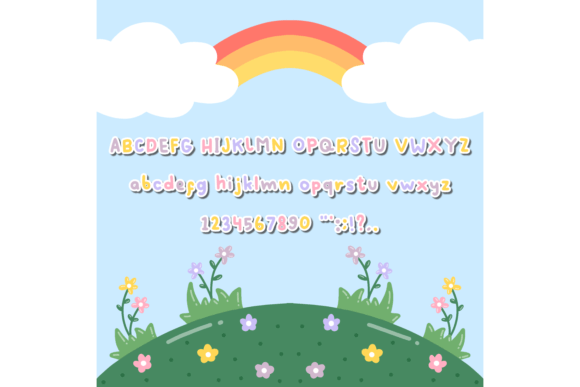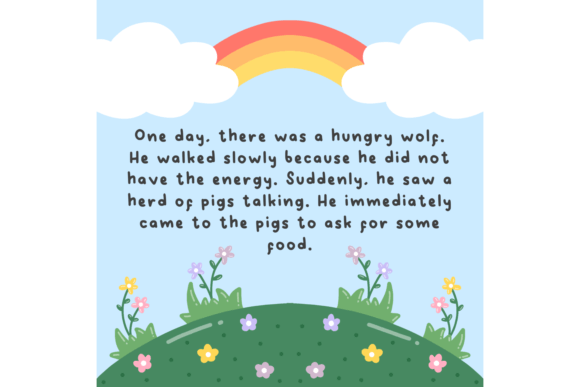
Wingko Babat Font
About Wingko Babat Font
“Wingko Babat” is a joyful and fun font that radiates a playful and cheerful vibe. Its cute and whimsical design makes it an excellent choice for children-oriented projects, including story books, drawing books, and even encyclopedias designed for kids. This typeface adds a delightful touch to educational materials and creative content targeted at young audiences.
The font’s lively and playful characters capture the essence of childhood, making it visually engaging and appealing to kids. Its cheerful demeanor creates a friendly atmosphere, making learning and reading more enjoyable for young readers. Whether you’re working on interactive storybooks, educational games, or colorful illustrations, “Wingko Babat” enhances the overall experience, making it exciting and captivating for children.
One of the strengths of “Wingko Babat” is its ability to bring a sense of joy and fun to educational materials. Its playful design encourages creativity and imagination, making it an ideal choice for projects that aim to inspire and entertain young minds. The font’s readability and child-friendly aesthetics ensure that it effectively conveys information while keeping children entertained and engaged.
By incorporating “Wingko Babat” into children-oriented projects, you’re infusing them with a sense of joy and creativity. Its joyful and fun design adds a playful touch, making learning and reading a delightful experience for young readers. Whether you’re an educator, a children’s book author, or a designer creating educational content, “Wingko Babat” provides you with a lively and engaging font choice to captivate children’s imaginations and create memorable learning experiences.